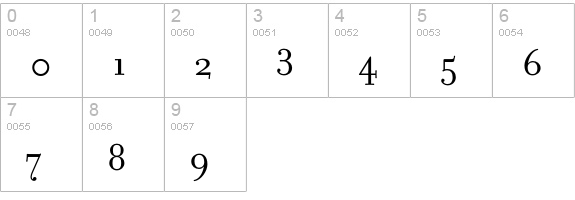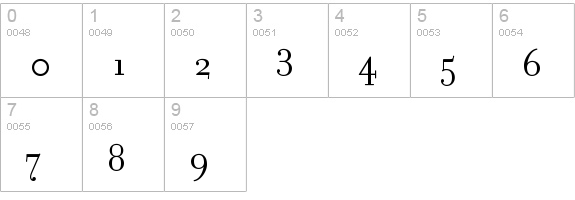
FilosofiaRegular Font Details
FilosofiaRegular font is a modern and sophisticated typeface that exudes elegance and style. Its clean lines and classic design make it a versatile choice for a wide range of design projects. Whether you're creating elegant invitations, stylish logos, or professional documents, FilosofiaRegular font is sure to make a statement. This font is available for free download at FontsMarket.com, making it easily accessible for designers looking to add a touch of class to their work. With its timeless appeal and user-friendly design, FilosofiaRegular font is a must-have for anyone looking to elevate their designs to the next level. Download it today and see the difference it can make in your projects.